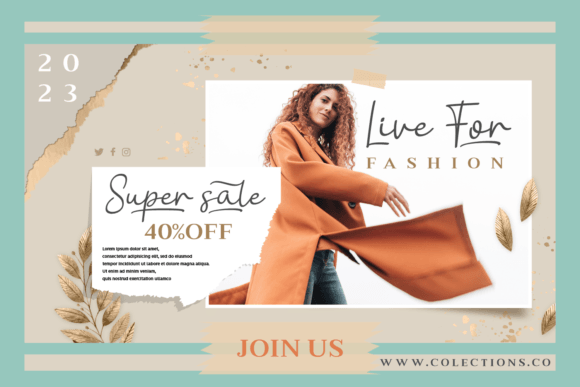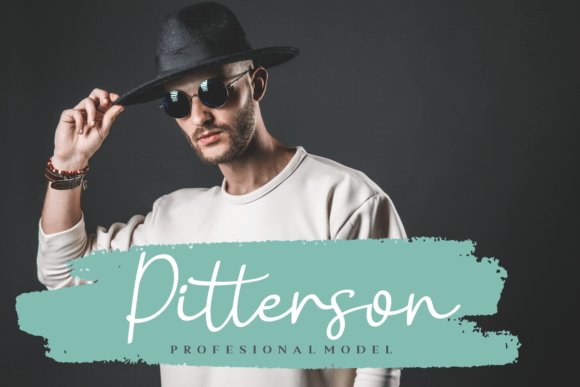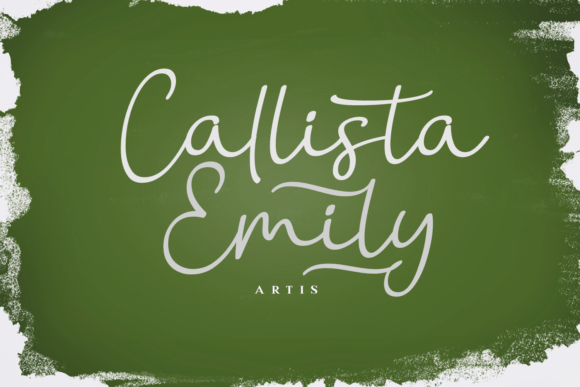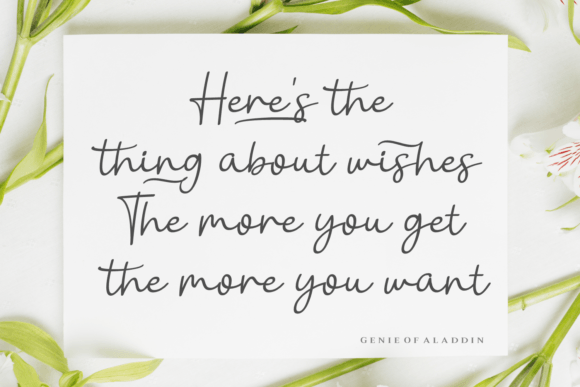
Introducing Aniska Font: Elevate Your Designs with Elegant Calligraphy
Are you looking for a font that adds a touch of sophistication and elegance to your designs? Look no further than Aniska Font, a beautiful calligraphic script font that is perfect for a variety of creative projects. In this article, we’ll explore the features and benefits of Aniska Font, and show you how it can elevate your typography to the next level.
What is Aniska Font?
Aniska Font is a stunning calligraphic script font that is designed to add an elegant, authentic touch to your typography. With its flowing lines and intricate details, this font is perfect for creating beautiful and sophisticated designs. Whether you’re working on invitations, logos, greeting cards, quotes, wedding designs, or any other project that requires a touch of elegance, Aniska Font is the perfect choice.
Key Features of Aniska Font
So, what makes Aniska Font so special? Here are just a few of its key features:
- Beautiful Calligraphic Design: Aniska Font features a stunning calligraphic design that is sure to impress. Its flowing lines and intricate details make it perfect for creating elegant and sophisticated designs.
- PUA Encoded: Aniska Font is PUA encoded, which means that you can easily access all the glyphs and swashes. This makes it easy to customize your designs and add your own personal touch.
- Multipurpose: Aniska Font is perfect for a variety of creative projects, including invitations, logos, greeting cards, quotes, wedding designs, and many more.
Why Choose Aniska Font?
So, why should you choose Aniska Font for your next design project? Here are just a few reasons:
- Elegance and Sophistication: Aniska Font adds a touch of elegance and sophistication to any design. Its beautiful calligraphic design is sure to impress and leave a lasting impression.
- Versatility: Aniska Font is perfect for a variety of creative projects. Whether you’re working on a wedding invitation, a logo, or a greeting card, this font is sure to fit the bill.
- Easy to Use: Aniska Font is easy to use and customize. Its PUA encoding makes it easy to access all the glyphs and swashes, and its clear and concise design makes it easy to read and understand.
Tips and Tricks for Working with Aniska Font
Here are a few tips and tricks for working with Aniska Font:
- Experiment with Different Sizes: Experiment with different sizes to find the perfect fit for your design.
- Play with Glyphs and Swashes: Play with the glyphs and swashes to add your own personal touch and make your design truly unique.
- Pair with Other Fonts: Pair Aniska Font with other fonts to create a truly unique and eye-catching design.
In conclusion, Aniska Font is a beautiful calligraphic script font that is perfect for adding an elegant, authentic touch to your typography. With its flowing lines and intricate details, this font is perfect for creating beautiful and sophisticated designs. Whether you’re working on invitations, logos, greeting cards, quotes, wedding designs, or any other project that requires a touch of elegance, Aniska Font is the perfect choice. So why wait? Download Aniska Font today and start creating stunning designs that will leave a lasting impression.